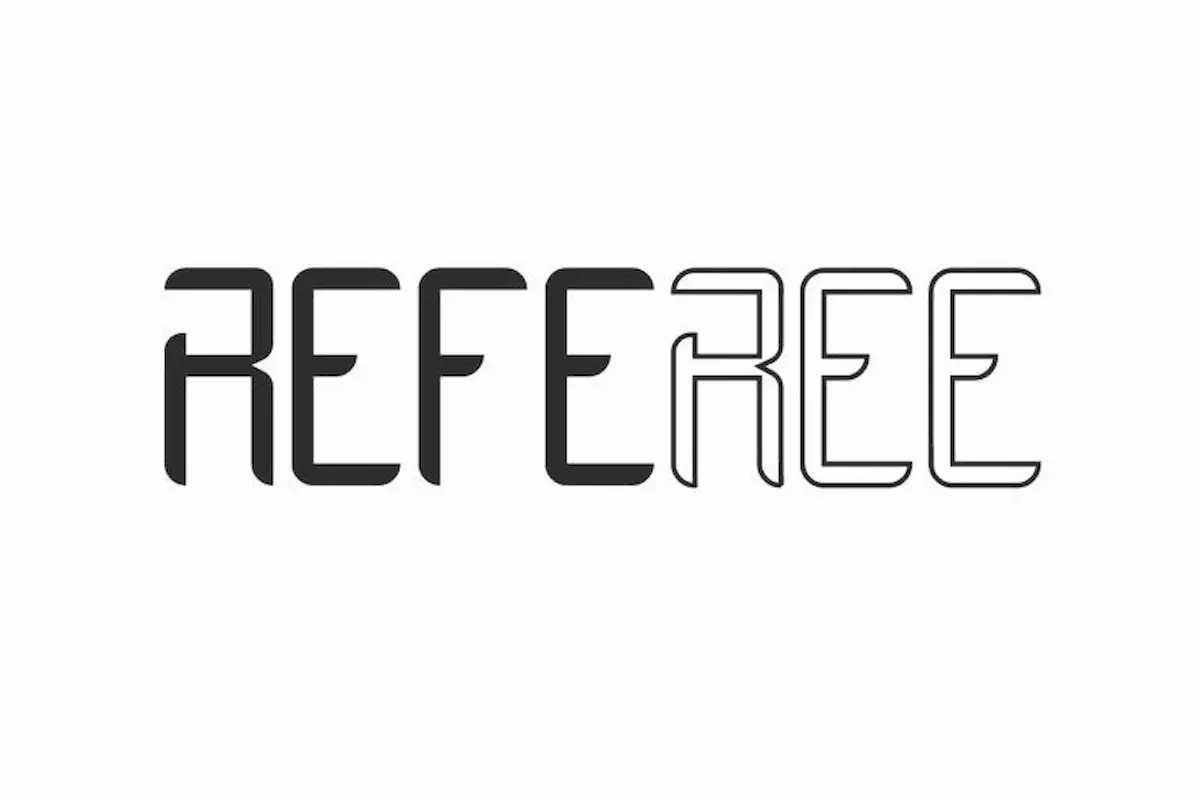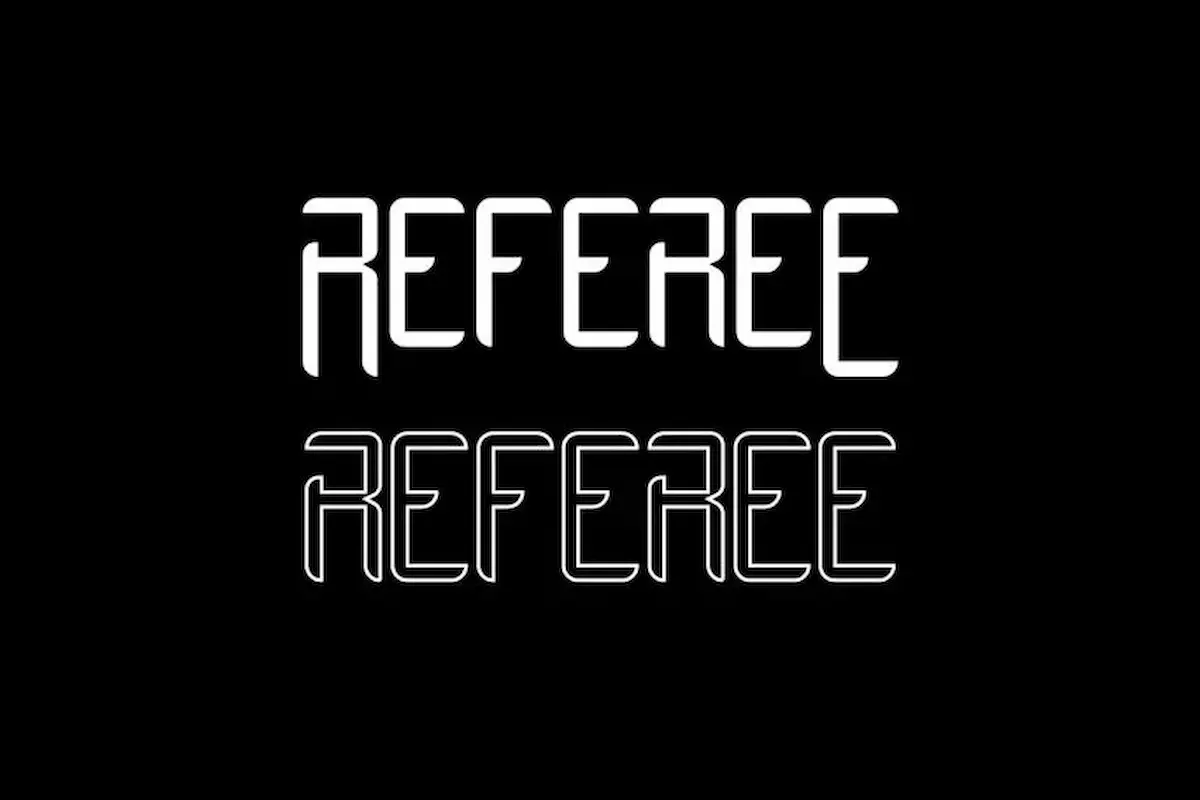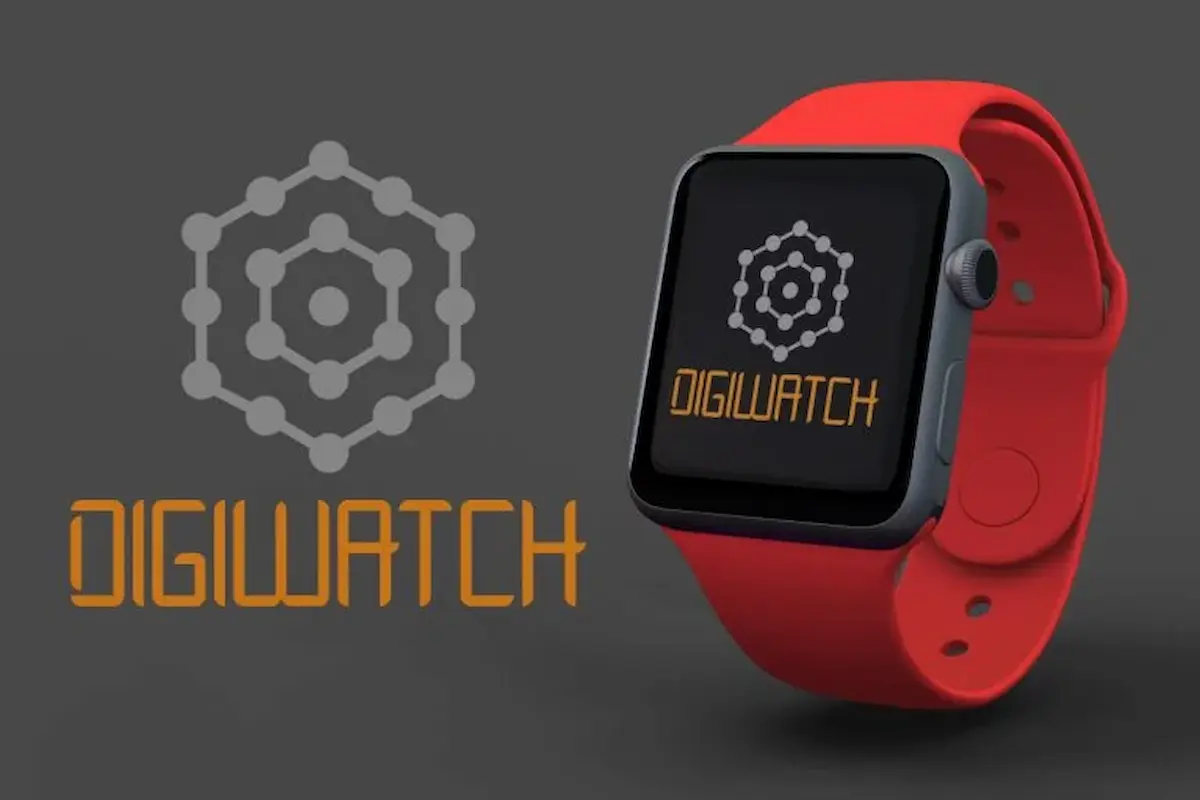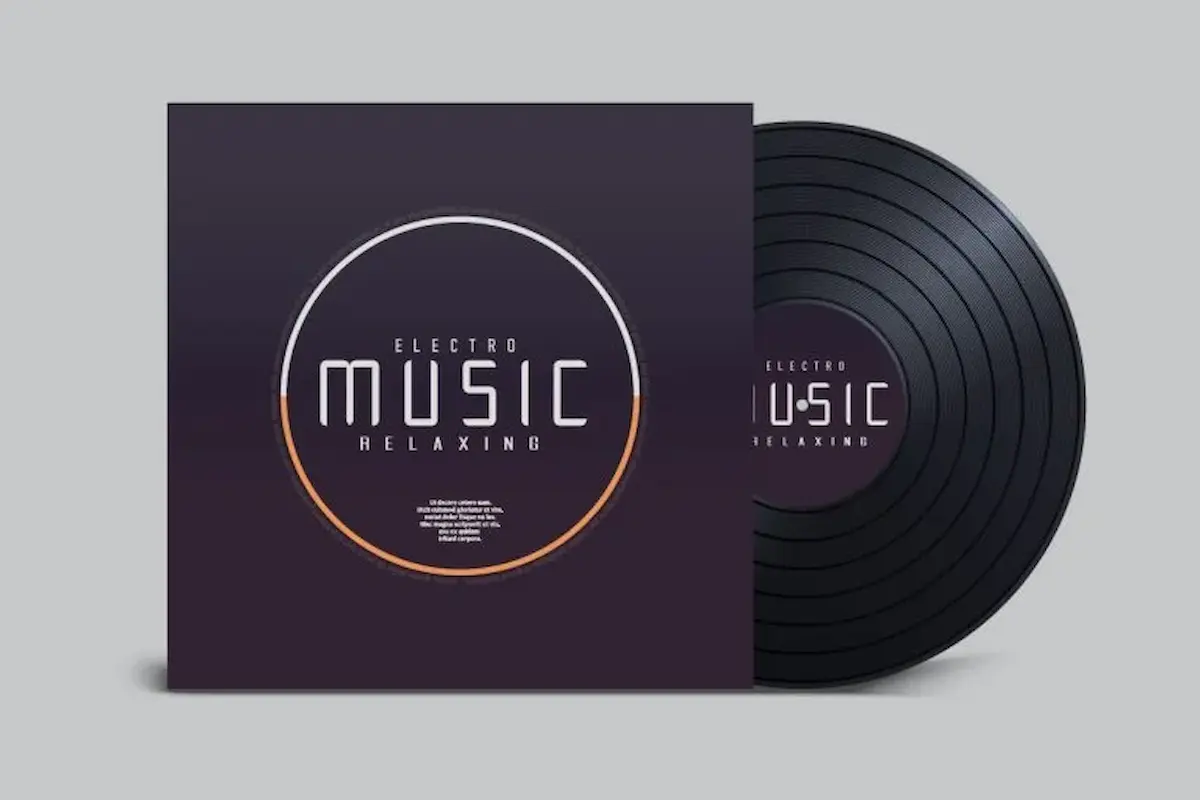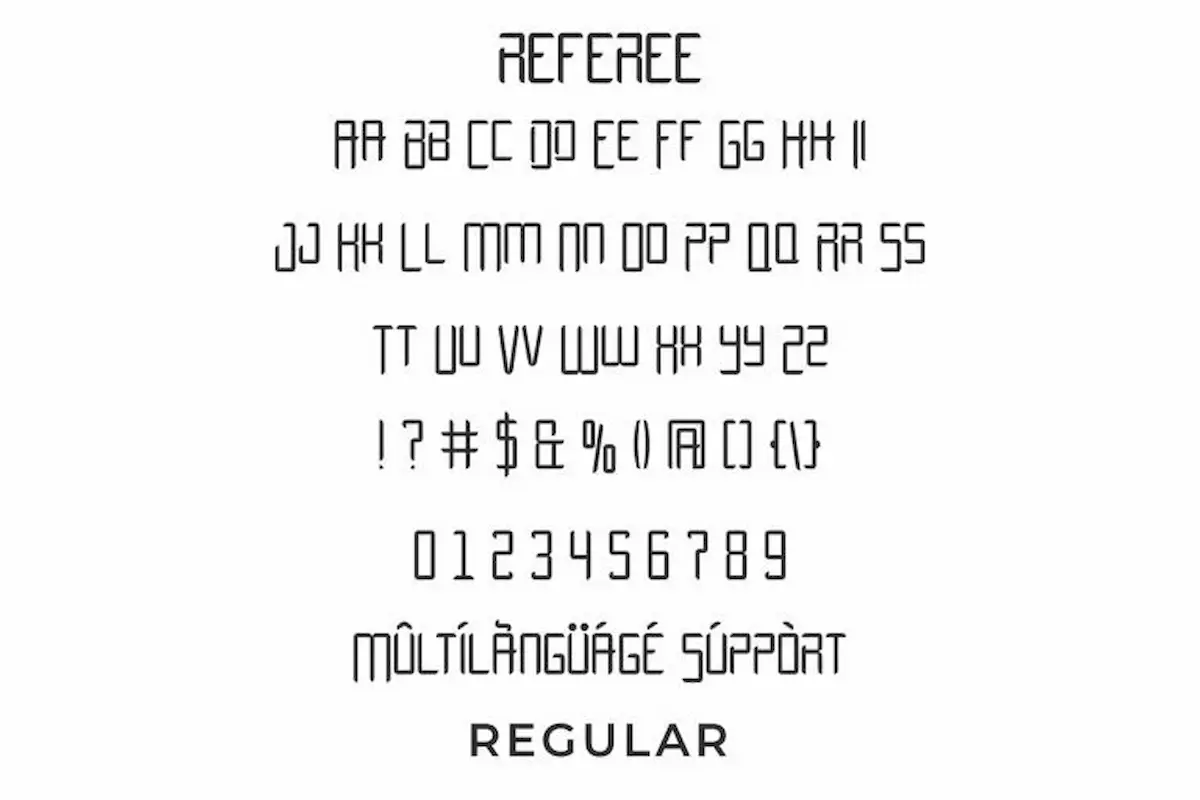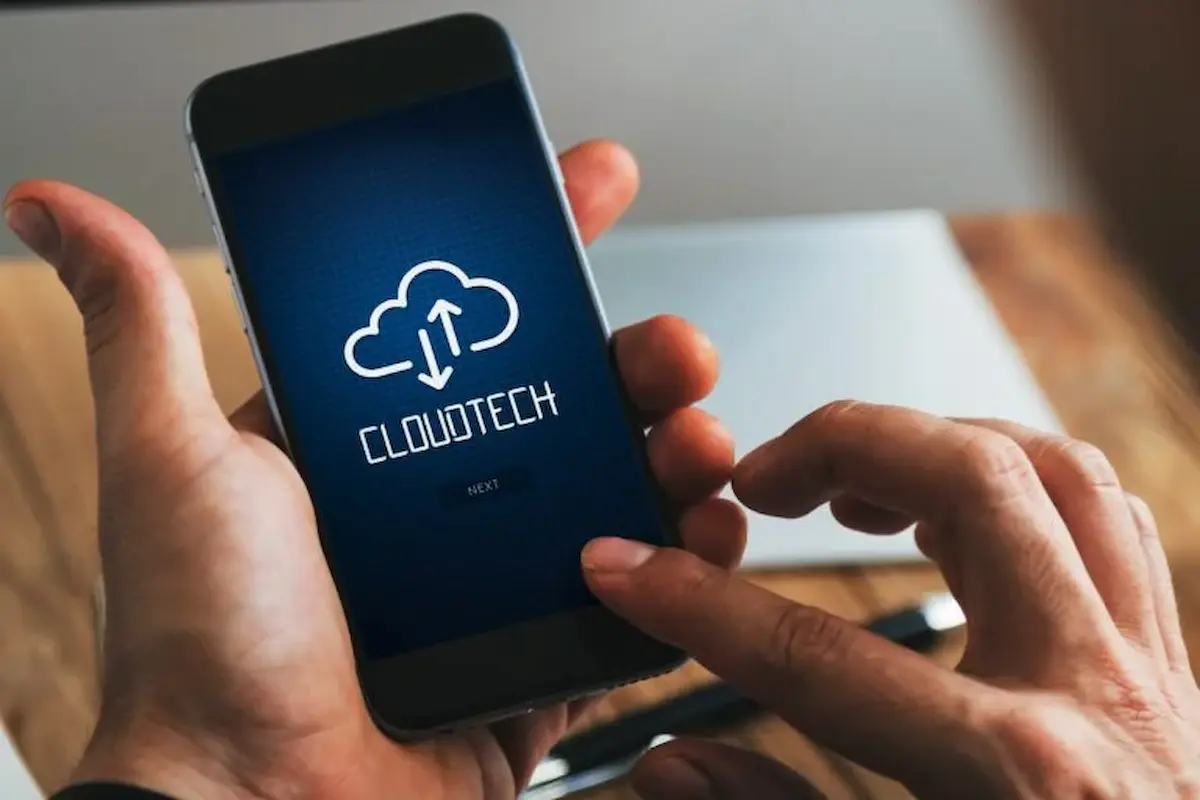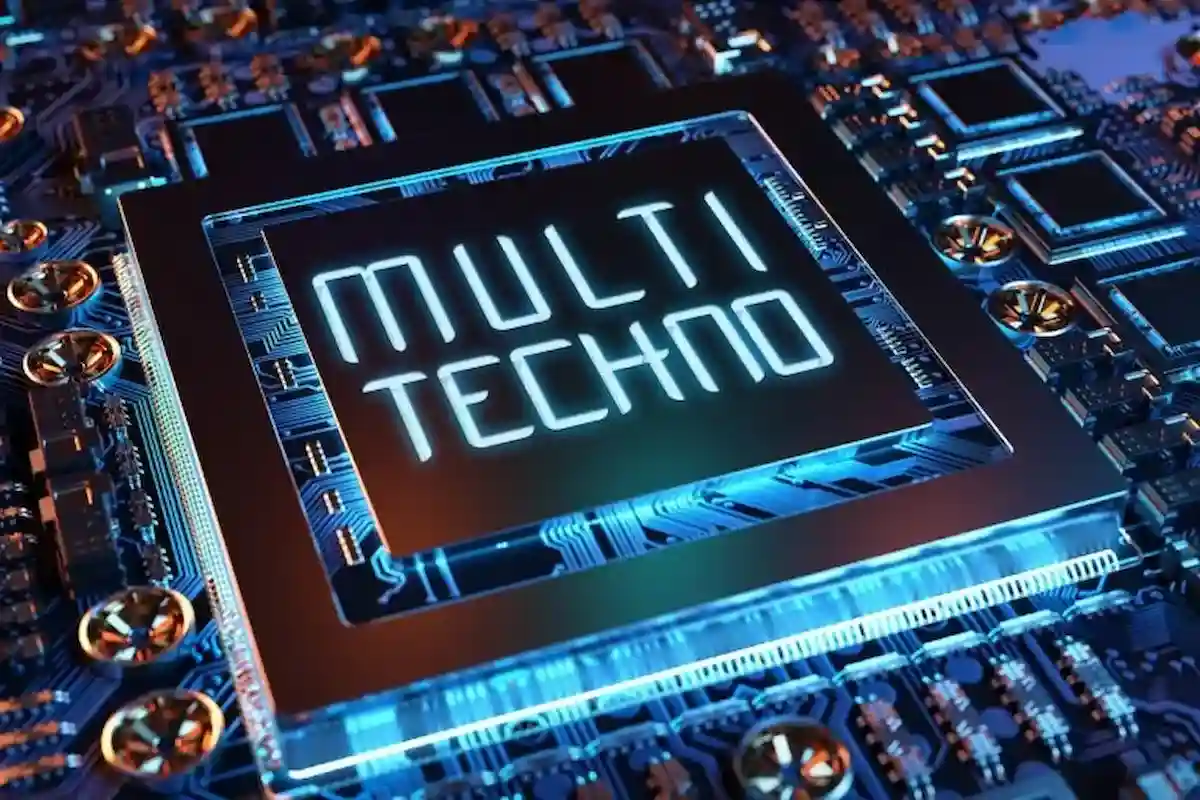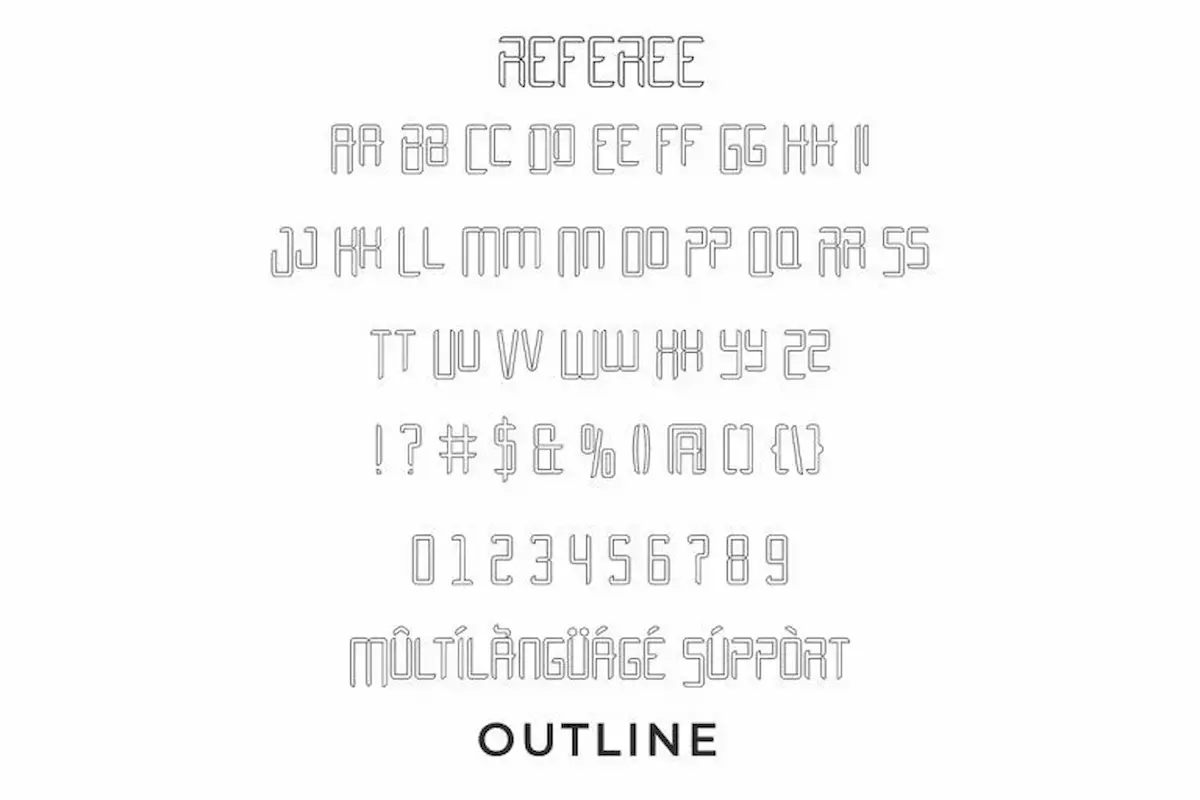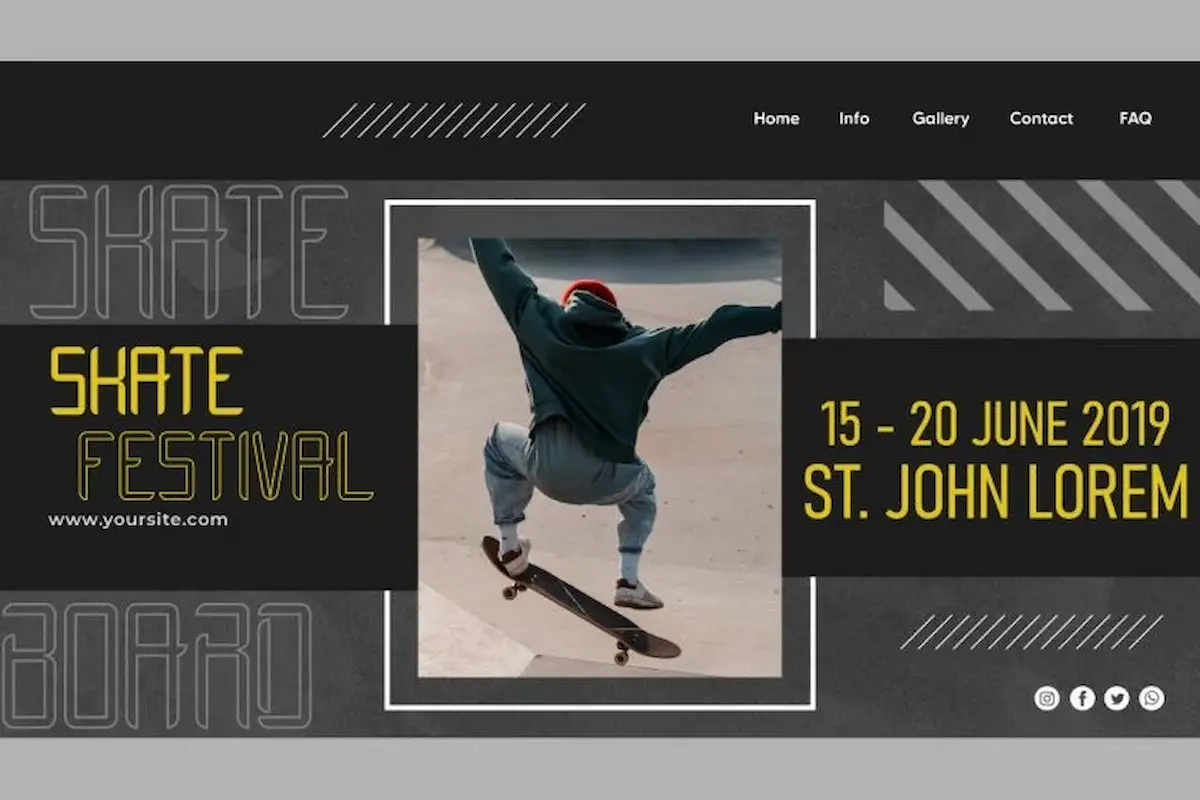
Referee Font is a display sans serif font by NihStudio. The font has a unique style inspired from sport. It will great for games, café, classic, music, barber, products etc.
Referee Font comes with two style options : Regular and Outlined. The fonts have OTF Files, TTF Files, Woff Files and we’ll also include Read-me help file txt. The font was handcrafted by Shalsa and Suci. Referee Font will be great for any projects (require extended license) including : branding, logo, stationery, business card, signage, flyer, brochure etc. It will be great for many business industries : games, sport, restaurant, café, music, automotive, movie, etc